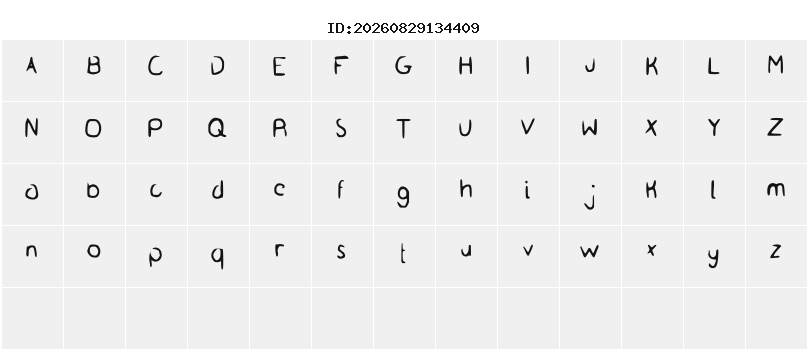
The_Average Preview
• Font Name: The_Average
• Full Font Name: The_Average
• PostScript Name: The_Average
About The_Average.ttf
The_Average.ttf is a modern, elegant sans-serif font designed for ultimate readability and visual harmony. Perfect for branding, headlines, web design, and print materials.